Oh Boy, Hand-Drawn Typefaces Are Having a Major Moment, and These 5 Fonts Prove It!
Something changed in type design. Not quietly — boldly, and with visible ink pressure. The hand-drawn typefaces released in early 2026 are not trying to mimic historical lettering for nostalgia’s sake. They’re making a pointed argument: that authenticity, warmth, and controlled imperfection communicate something that algorithmic precision simply cannot. Designers are tired of smooth. Audiences are craving proof of a human hand. And type designers are delivering exactly that.
This isn’t a minor stylistic swing. Furthermore, it’s a direct response to an increasingly AI-saturated visual landscape where every surface threatens to look generated rather than made. Consequently, hand-drawn fonts have moved from a decorative category to a strategic one. They function as authenticity signals — immediate, non-verbal declarations that a person made something and meant it.
The five hand-drawn typefaces covered here represent early 2026’s strongest entries in that category. Each one approaches the challenge differently. Together, they map out the full range of what handcrafted digital typography looks like right now — from raw display faces to intimate script fonts to bold expressive duos.
Why Are Hand-Drawn Typefaces More Relevant Than Ever Right Now?
The question deserves a direct answer. Design culture has entered what critics are calling the Post-Minimalist Typography Wave — a phase defined by a collective pivot away from sterile, system-optimized aesthetics toward type that feels made by human hands. This wave began gaining momentum around 2021 and, rather than subsiding, has only grown more purposeful.
Two forces drive it. First, AI tools have made perfect, smooth visual output trivially easy to generate. As a result, that very perfection has started to feel cheap — a signal of automation rather than craft. Second, audiences have simultaneously developed stronger pattern recognition for what generated content looks like. They sense the uncanny smoothness. Therefore, anything that carries the evidence of a human hand now stands out, and that standing out is commercially valuable.
Hand-drawn fonts carry what I call the Human Trace Principle: the visible evidence of a real person behind the design. This principle explains why brands across food, fashion, lifestyle, and independent retail are increasingly reaching for expressive, imperfect typefaces over clean geometric systems. Moreover, it explains why the best hand-drawn typefaces of 2026 feel less like trend items and more like essential tools for communicating authenticity at the letterform level.
So what defines a strong hand-drawn typeface? Three qualities: source authenticity (does it feel derived from actual human mark-making?), emotional register (does it evoke a specific and honest feeling?), and technical stability (does it hold up in real production contexts?). Every typeface in this list earns high marks across all three.
01. Pants On Fire — Hanoded
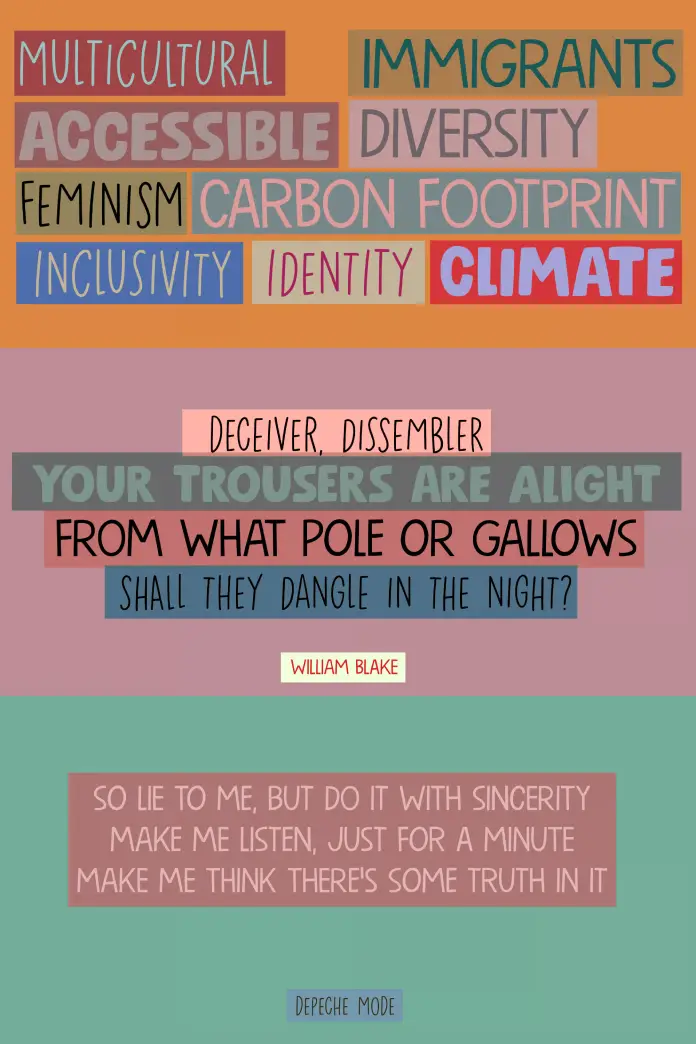
Start with the one that earns its name. The Pants On Fire font by David Kerkhoff of Hanoded is a hand-drawn typeface family that speaks at full volume — and then stays. It ships as three distinct styles: a rough Bold, an angular Medium, and a lighter, genuinely versatile Lightweight. Each weight shares a common skeleton but operates at a different expressive temperature. Use one at a time or layer all three. They hold together either way.
Kerkhoff has built a reputation for hand-drawn fonts that avoid the twee, overly casual quality that makes so many informal faces feel cheap. His work is deliberate, character-forward, and structurally aware. Pants On Fire continues that track record. The Bold is built for packaging where a product needs to announce itself from a shelf. The Medium handles editorial and poster work with angular confidence. The Lightweight — and this is the weight that surprises you — carries enough evenness to move into body-adjacent territory without losing the typeface’s essential character.
The Textural Authenticity Gradient
To understand why Pants On Fire works so well, consider a framework I call the Textural Authenticity Gradient (TAG). It describes the spectrum from mechanically perfect type to deliberately imperfect, humanized letterforms. Fonts at the mechanical end communicate precision and neutrality. Fonts at the humanized end communicate craft, personality, and presence.
Pants On Fire sits at the high-authenticity end of the TAG — and does so without sacrificing legibility. That balance is rarer than it sounds. Many hand-drawn fonts lean so far into texture that they start to obscure meaning. This typeface stays readable first and expressive second, which is exactly the right priority for commercial typography. Additionally, the three-weight structure gives it something most expressive display faces lack: genuine versatility across different design contexts.
Furthermore, Kerkhoff designed Pants On Fire with real range in mind. Apply the Layered Use Principle (LUP) — treating the three weights as a voice system rather than interchangeable options. The Bold commands. The Medium directs. The Lightweight supports. Build a packaging system around that hierarchy, and the result is a cohesive typographic identity, not just a font choice.
The Penmanship Fidelity Index (PFI) is an editorial framework coined here at WE AND THE COLOR to evaluate how closely a digitized script typeface retains the tactile, imprecise qualities of analog handwriting. High-PFI fonts feel written — they carry subtle stroke weight variation, spontaneous-feeling letter connections, and organic rhythm. Low-PFI fonts feel constructed — smooth, engineered, and identifiably digital despite their cursive appearance. Jackie’s Pen by Studio Madly scores exceptionally high on the PFI. It is designed as an editorial construct to help designers evaluate and justify handwriting-inspired type choices, not as an established industry measurement standard.